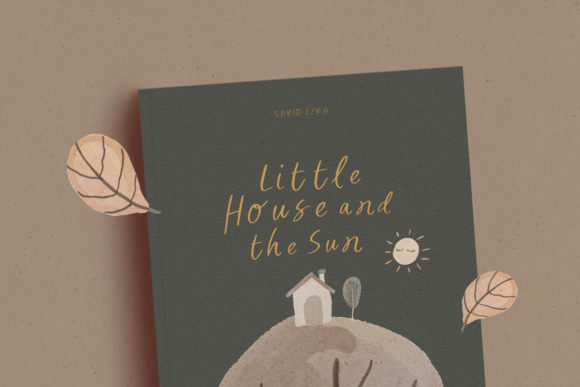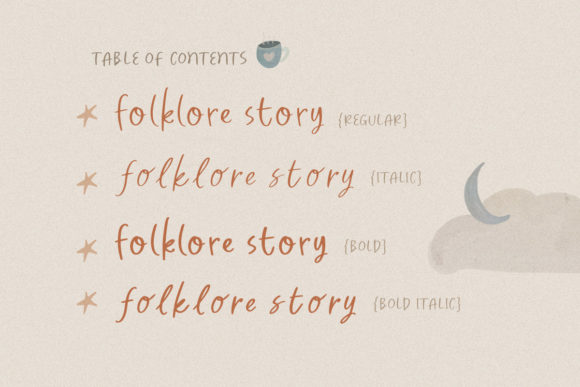
Introduction to Folklore Story Font
Have you ever stared at a blank page, waiting for the perfect font to bring your creative project to life? I know I have. The search for that one special font that captures the essence of your design can be a daunting task, especially when you’re working on a project that requires a delicate touch. That’s where the enchanting Folklore Story Font comes in – a beautiful and flowing script font that will transport your designs to a world of elegance and sophistication.
As a valuable resource for designers, the Folklore Story Font offers a unique blend of style and versatility. Whether you’re working on a digital design with a transparent background or a print project that requires high-quality typography, this font is sure to impress. And the best part? It’s available for free download, making it an essential addition to any designer’s toolkit.
Folklore Story Font
- High-quality font with a unique, hand-drawn design, perfect for creative projects and adding a personal touch.
- Comes with a comprehensive character set, including uppercase and lowercase letters, numbers, and punctuation marks.
- Perfect for designers and writers looking to add a touch of whimsy and creativity to their projects, from children’s books to fantasy novels.
I recently stumbled upon the Folklore Story Font, and I must say it’s been a game-changer for my creative project. The moment I laid eyes on it, I knew it was going to add that extra oomph to my design. Let me break down what works well and what doesn’t.
- High-quality design: The Folklore Story Font is a masterpiece of typography, with intricate details that will elevate any design.
- Limited font variations: While the Folklore Story Font is stunning, I wish there were more variations to choose from.
- Not ideal for bold typography: Due to its intricate details, it’s not the best choice for bold typography or large text sizes.
Overall, I’m impressed with the Folklore Story Font. It’s a valuable design resource that can add a touch of magic to your creative project. If you’re looking for a high-quality, free font, this is definitely worth checking out.
Tips for Getting the Most Out of Folklore Story Font
To get the most out of Folklore Story Font, use it in conjunction with a transparent background to create a high-quality design resource. You can also experiment with different font sizes and styles to achieve the desired effect. Additionally, consider using the font in a creative project, such as a book cover or a poster.
Folklore Story Font is a versatile font that can be used in a variety of creative projects, including book covers, posters, and website designs. It’s also a great resource for designers who need a high-quality, free download font. With its unique and elegant design, Folklore Story Font is sure to add a touch of sophistication to any design project.
Q: Can I use the Folklore Story Font with a transparent background?
Yes, the Folklore Story Font is designed to be used with a transparent background, making it ideal for use in graphic design, digital art, and other creative projects where a clear background is required.